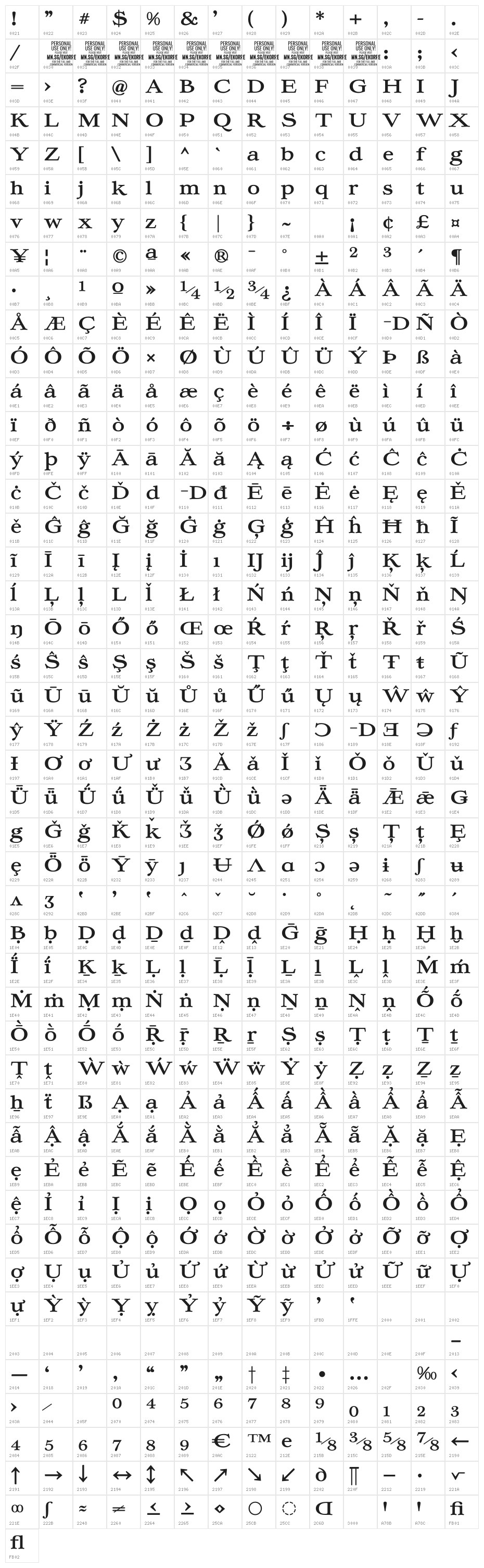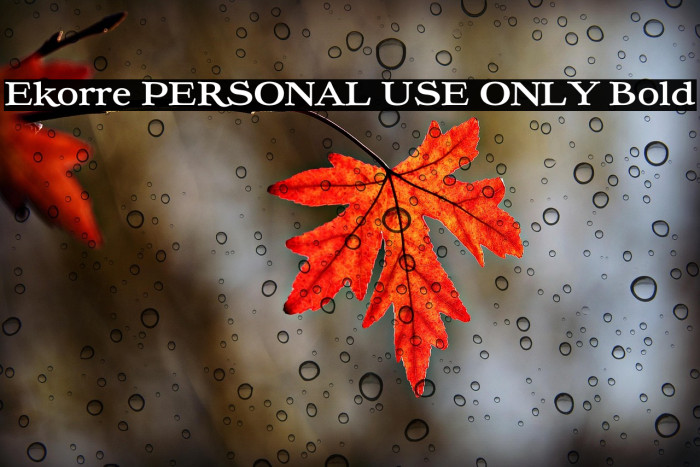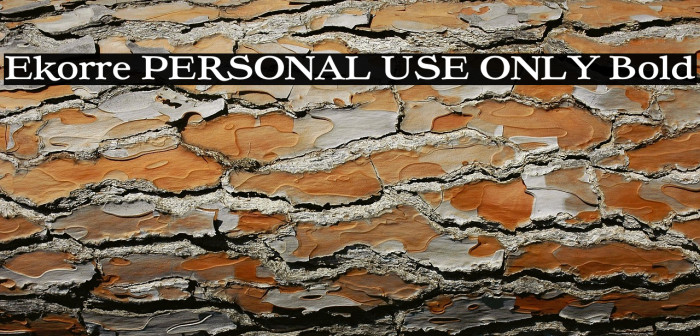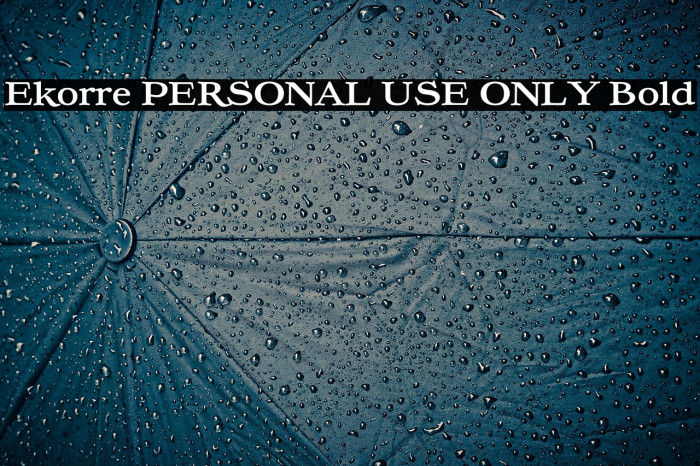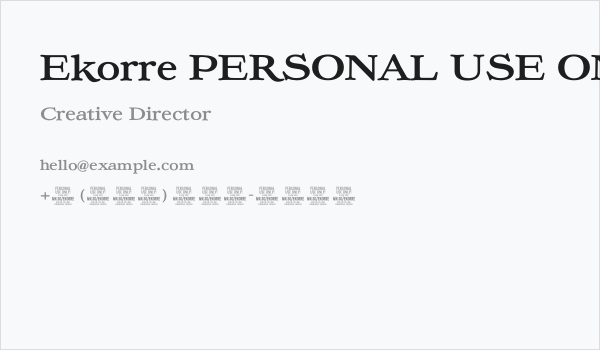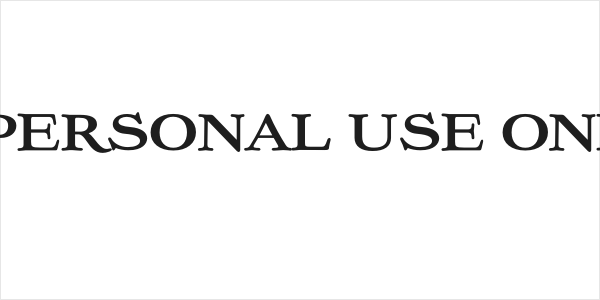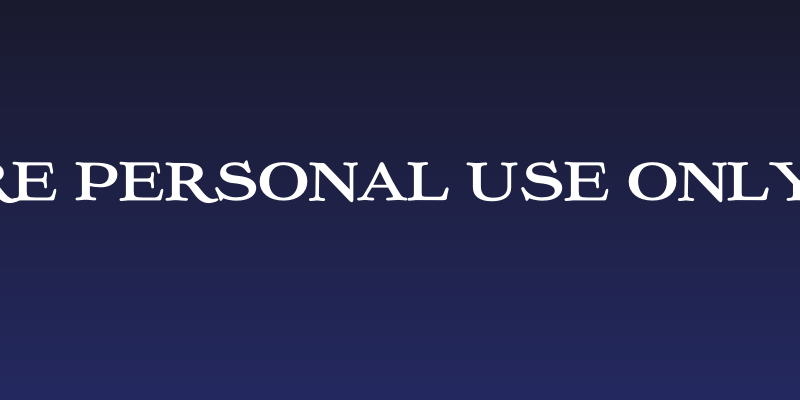
Ekorre PERSONAL USE ONLY Bold Font
Ekorre PERSONAL USE ONLY Bold Description
This font exhibits a classic serif style with a bold weight, characterized by its strong and pronounced serifs. The uppercase letters are tall and commanding, while the lowercase letters maintain a consistent height, offering a balanced and harmonious appearance. The strokes are thick, providing a high contrast between the thick and thin elements, which enhances readability and gives the font a traditional yet impactful presence. The spacing between characters is normal, allowing for clear legibility in both headlines and body text. The overall style is reminiscent of vintage typography, making it suitable for projects that require a touch of elegance and sophistication.
| Proposed Projects | Ideal for book covers, editorial design, branding, and formal invitations. |